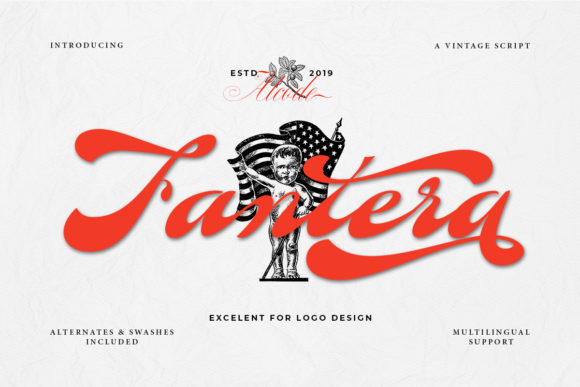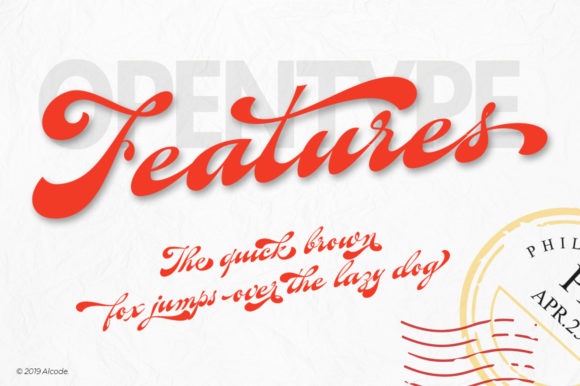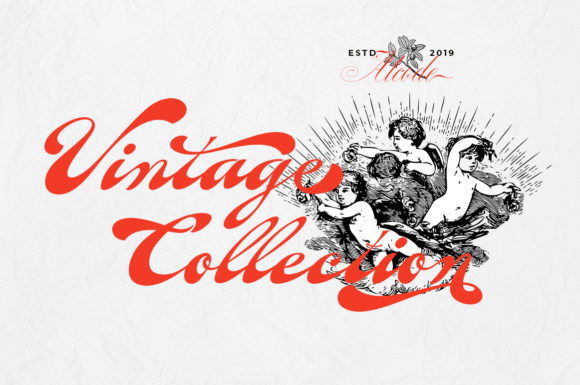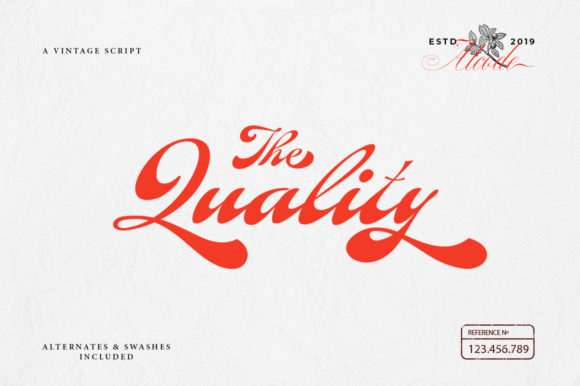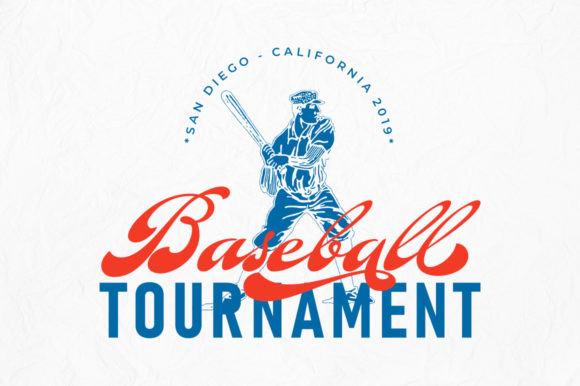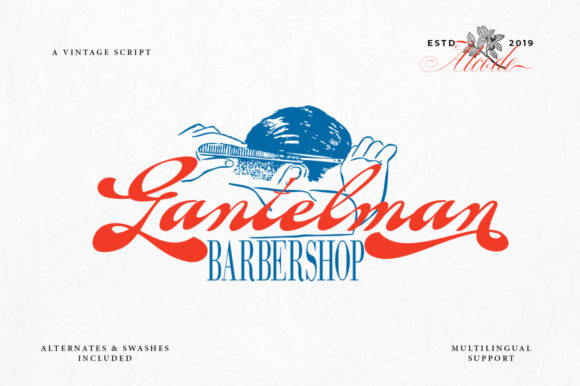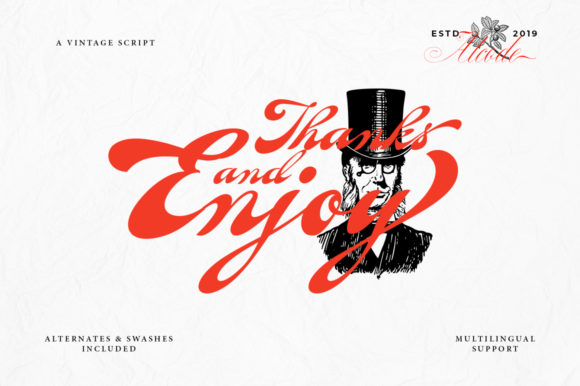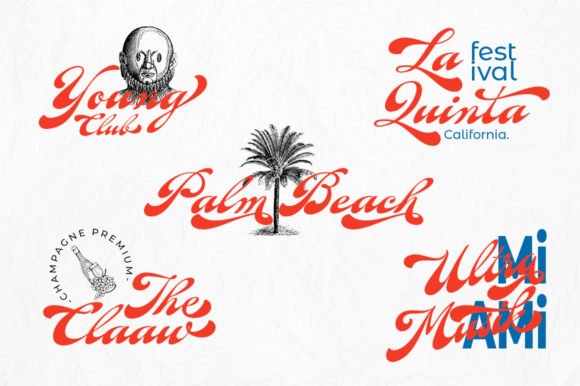
Fantera Font
About Fantera Font
Fantera is a playful vintage font that delivers quality and style. This unique script evokes the iconic look and feel of vintage advertising fonts, and will add a nostalgic vibe to any design!